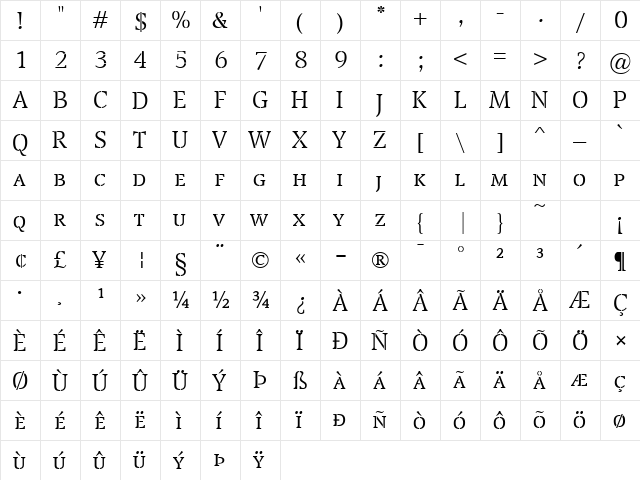
Transport Light SC Regular Font Preview
Transport Light SC Regular
Design Context for Transport Light SC Typeface
Transport Light SC has the bold swagger of sports branding: strong, assertive letterforms designed to dominate headlines and jerseys alike. The delicate stroke weight brings airiness and refinement to layouts.
Built for sports team identities, athletic apparel, event posters, and high-energy promotional material.
Font Pairing: Use alongside a condensed or geometric sans for supporting copy — keep the pairing bold, functional, and free of ornament.
Pro Tip: Transport Light SC thrives on contrast — try it large, bold, and tight against a clean background for maximum visual impact.